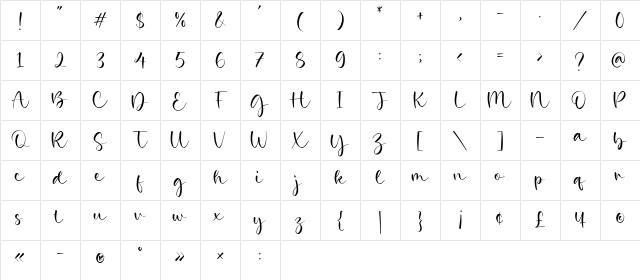
Broken White Regular Free Font
Broken White Regular
Designer: Timur Type Studio
Design Context for Broken White
Broken White is a composed and adaptable typeface that performs quietly and consistently across a wide range of design contexts.